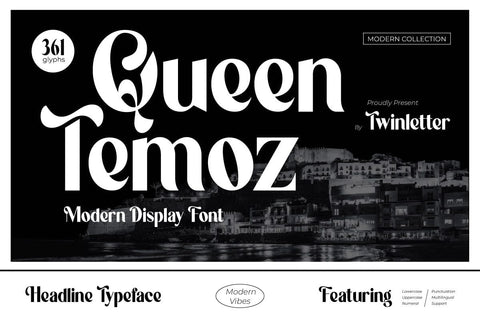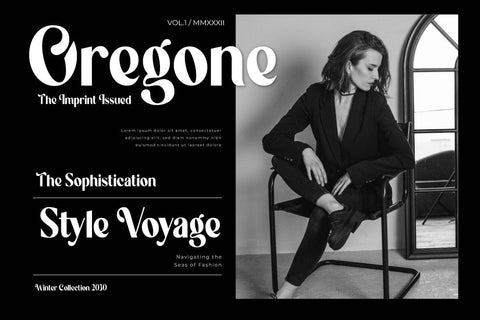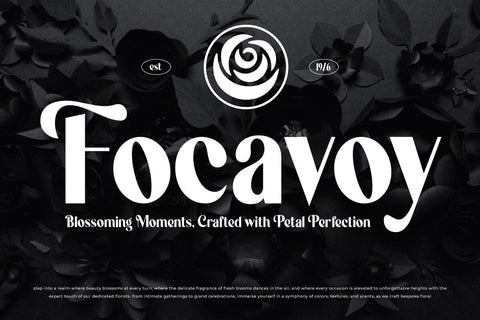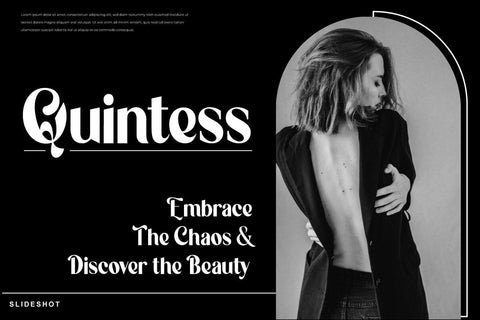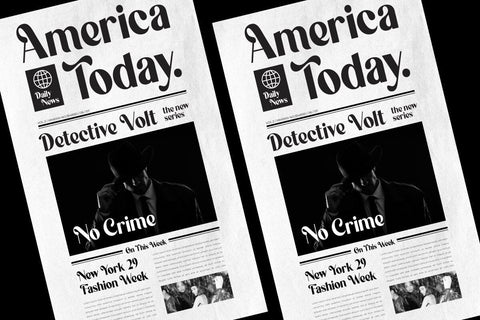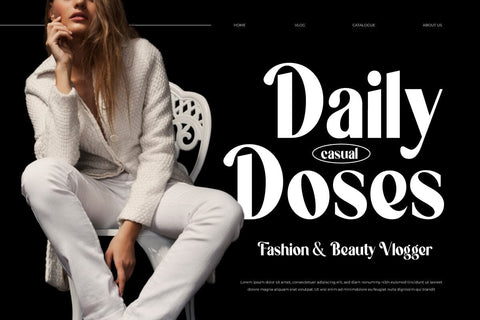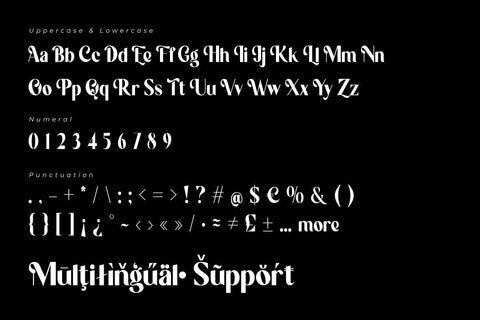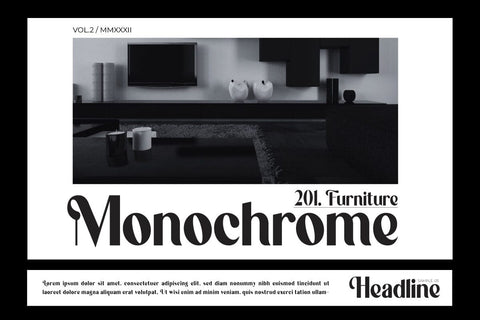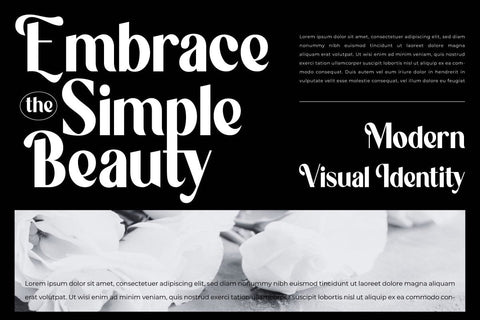
Queen Temoz - Modern Display Font
Step into the realm of sophistication with Queen Temoz, a modern display font that exudes elegance and contemporary charm. Perfectly crafted to elevate your designs, Queen Temoz features sleek lines and refined curves that make it a versatile choice for high-end branding, fashion editorials, luxury product packaging, and stylish advertisements. Its modern aesthetic brings a sense of grace and professionalism to any project. Whether you're designing a chic logo or an eye-catching headline, Queen Temoz ensures that your work stands out with its timeless beauty. Embrace the regal allure of Queen Temoz and transform your creative visions into captivating masterpieces.